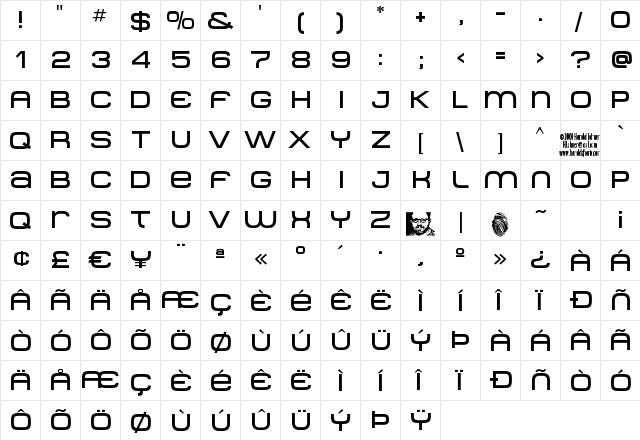
MetroDF Regular
Design Context for MetroDF Typeface
MetroDF takes a measured approach to typography — its balanced proportions and neutral character make it a reliable workhorse for both digital and print work.